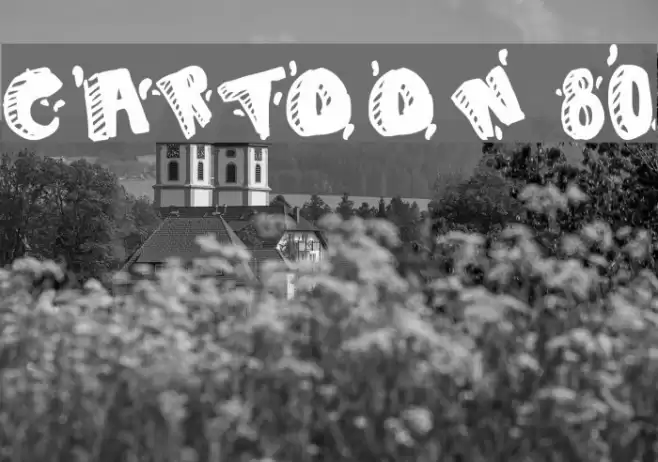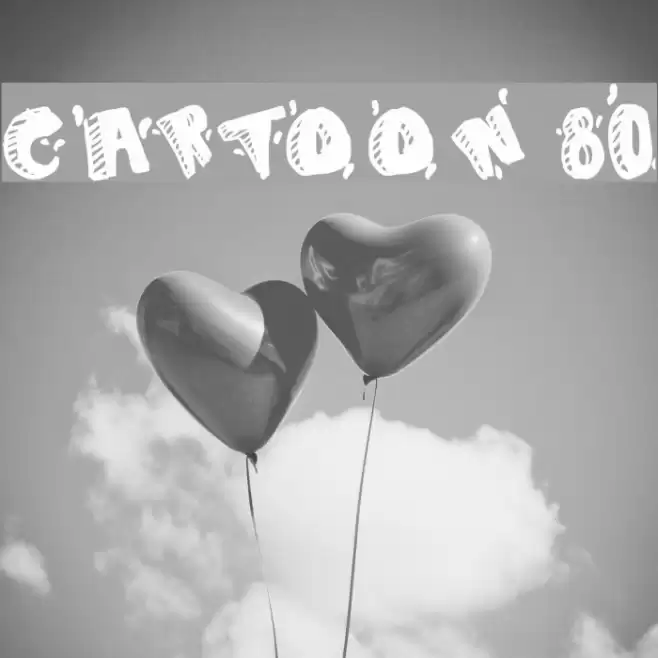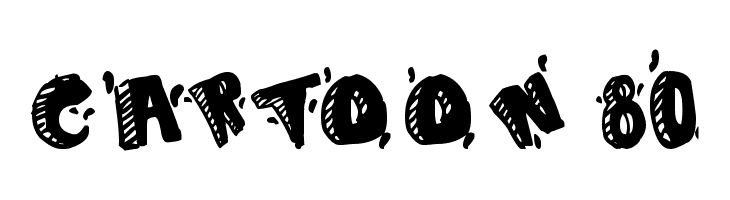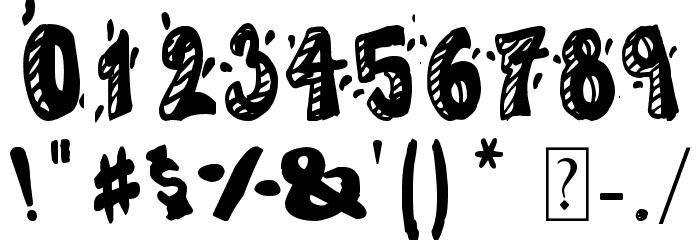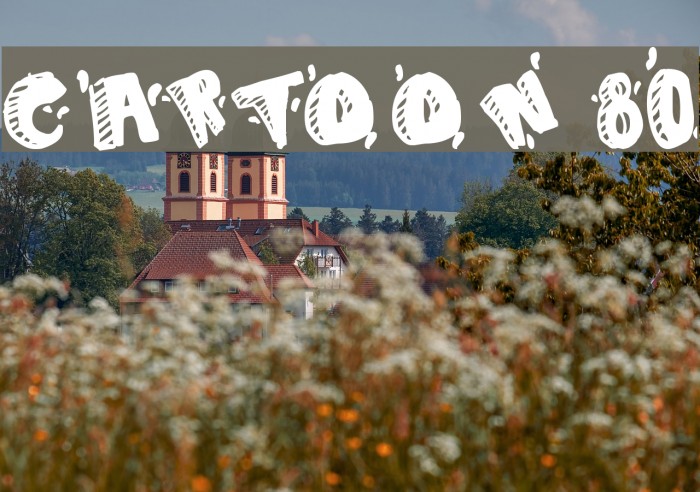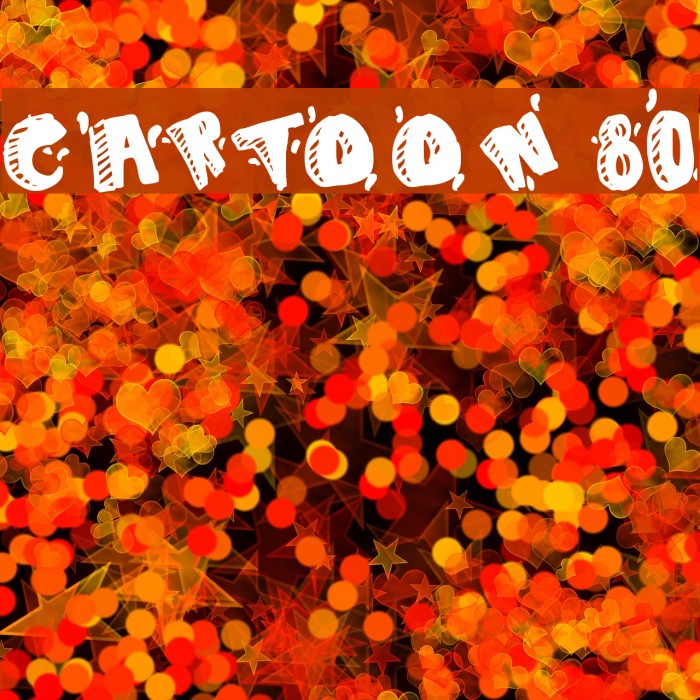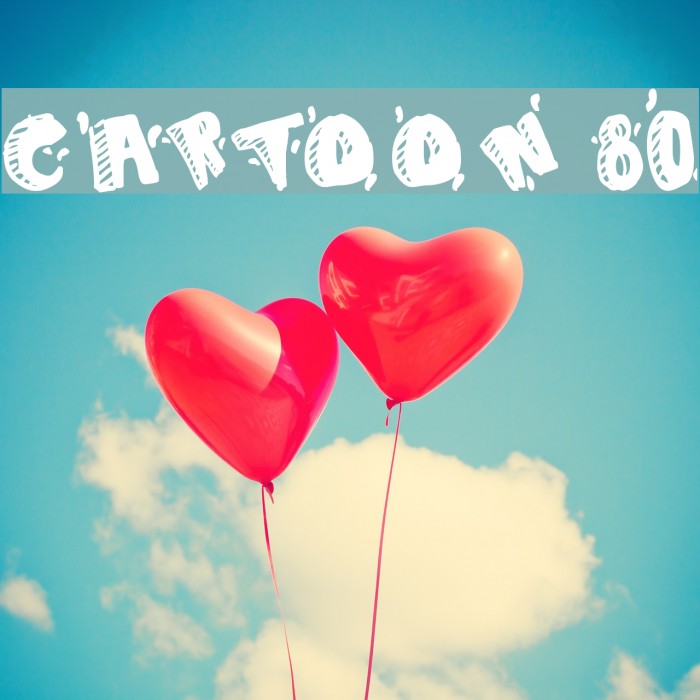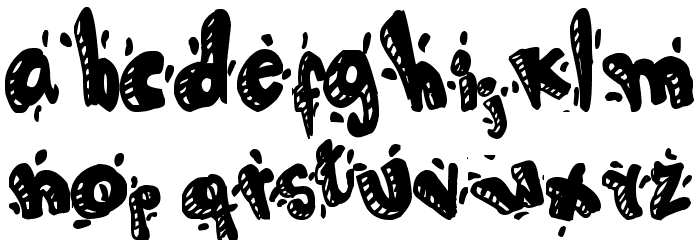
CARTOON 80 Font
CARTOON 80 Description
This playful and whimsical font features bold, cartoonish letters with a hand-drawn appearance. Each character is filled with a unique pattern of dots and lines, giving it a lively and dynamic feel. The font is characterized by its thick strokes and irregular shapes, adding to its informal and fun style. It captures a sense of movement and energy, making it ideal for projects that require a touch of humor and creativity. The font includes a full set of uppercase and lowercase letters, numbers, and a variety of special characters, all maintaining the same playful aesthetic.
A bold, cartoonish font with a playful, hand-drawn style from Cartoon fonts.
- Proposed Projects: Ideal for children's books, comic strips, playful branding, and creative posters.
- Overall Style: Playful, Whimsical